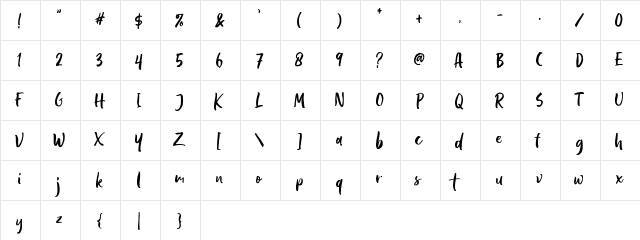
Pastelle DEMO Regular
| Foundry | Letterhend Studio |
| Designer | Sarid Ezra |
Design Context for Pastelle DEMO Typeface
Pastelle DEMO is a composed and adaptable typeface that performs quietly and consistently across a wide range of design contexts.